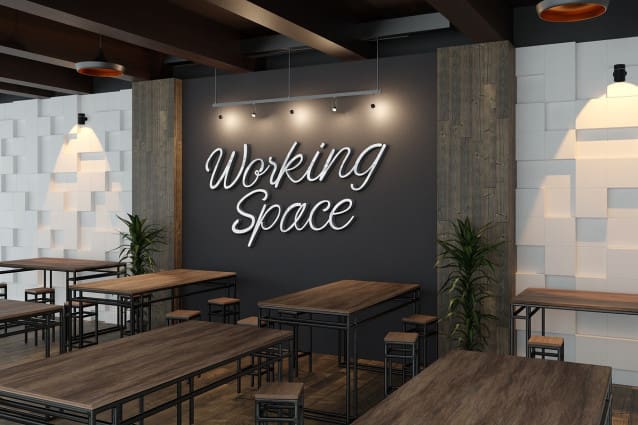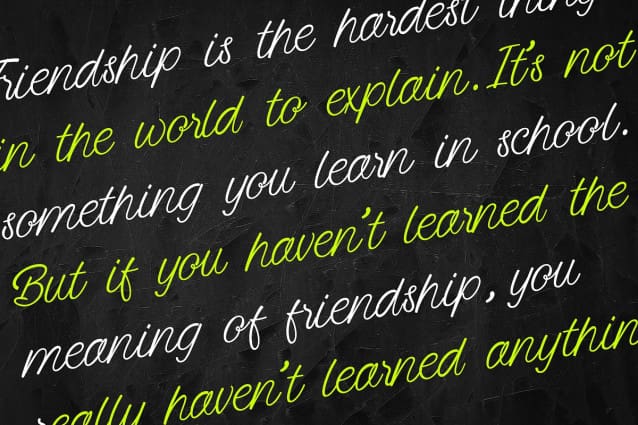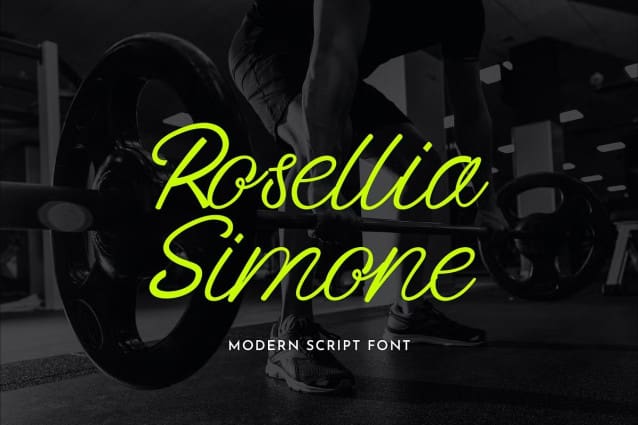
Rosellia Simone Font
Rosellia Simone Font – Modern signature font that feels beautiful classy, elegant, and modern .This font is perfect suited for a wide variety of projects, as to signature, stationery, logo, wedding, typography quotes, magazine or book cover, website header, clothing, branding, packaging design and more. Also for fashion related branding or editorial design and displays both masculine and feminine qualities.